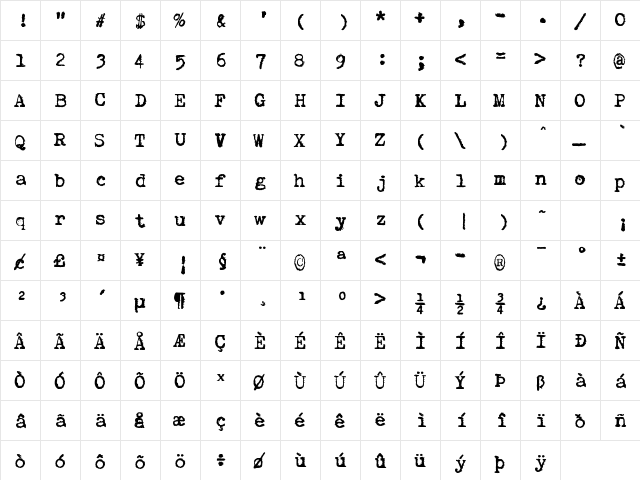
zai Consul Polish Typewriter Regular
| Foundry | ZAI |
| Designer | Tomasz Skowroֳki |
Design Context for zai Consul Polish Typewriter Typeface
zai Consul Polish Typewriter brings the precise, column-aligned rhythm of monospaced typography to designs that value technical clarity and systematic order.
A natural fit for code editors, technical documentation, developer-focused branding, and terminal-inspired UI.
Pro Tip: Pair zai Consul Polish Typewriter with a proportional sans for UI contexts where code-style labels and regular body copy need to coexist.